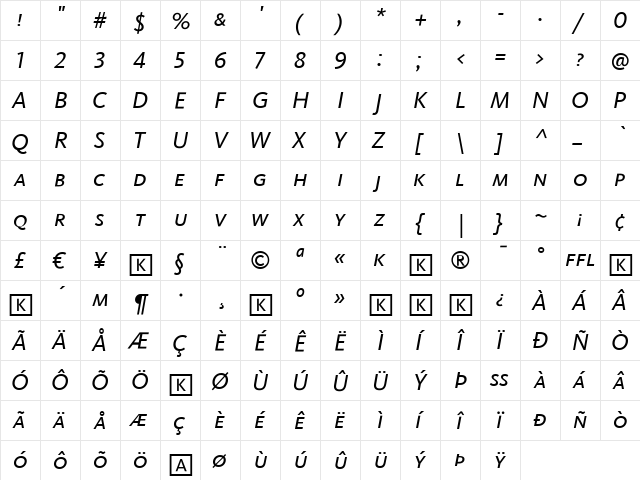
Kievit Italic
Design Context for Kievit Typeface
Kievit offers clean, dependable letterforms without strong stylistic allegiance, making it a practical choice for designers who need flexibility. Its italic angle brings a sense of urgency and motion to the letterforms.
Pro Tip: Try Kievit for annotation and caption copy alongside an upright companion — the contrast in angle creates a dynamic but ordered typographic system.